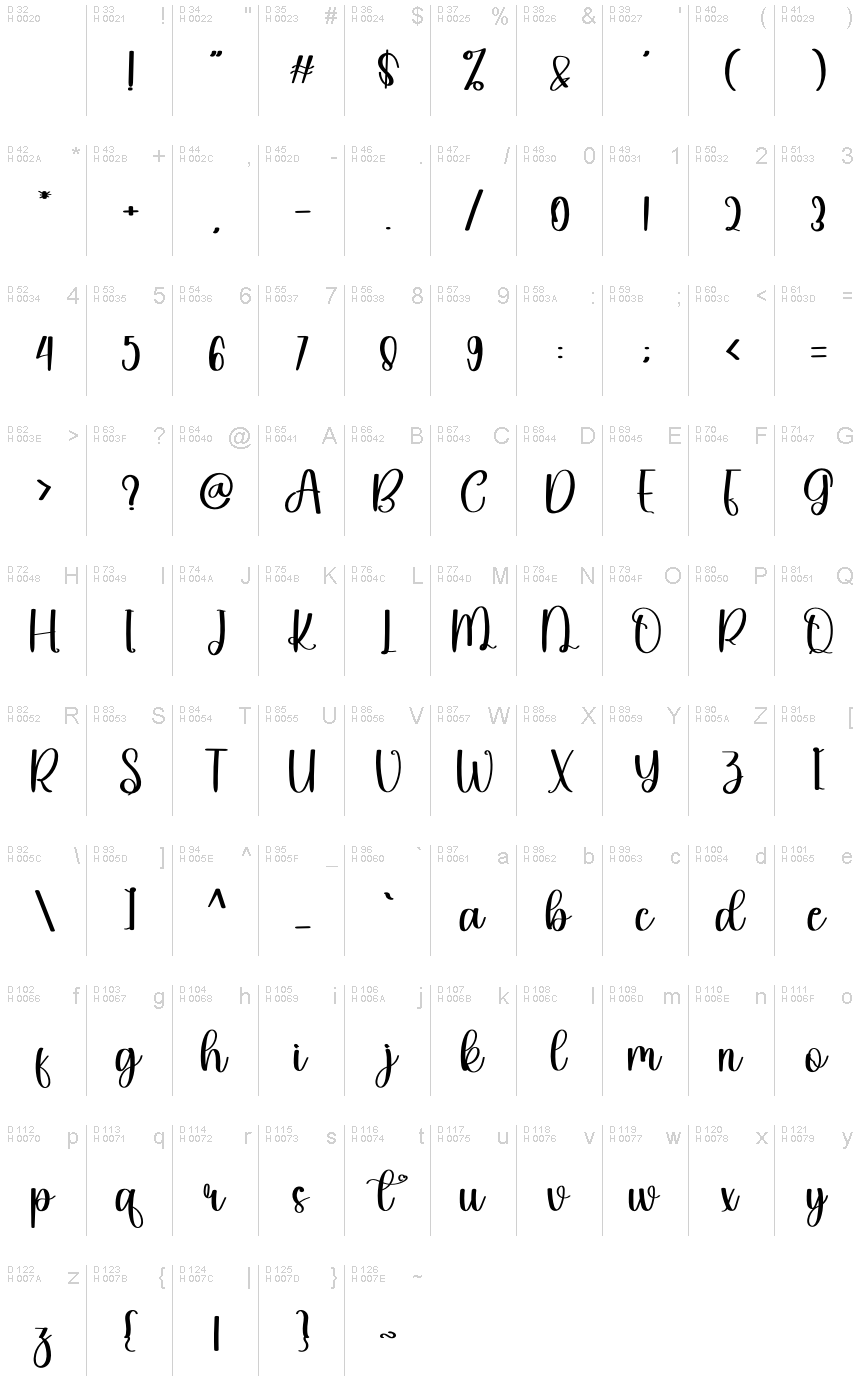
Ruling
Ruling font, crafted by PiPi Creative, is an exquisite calligraphy typeface that captivates with its elegant and refined lines. Perfect for creating sophisticated and personal designs, Ruling font delivers a graceful touch to wedding invitations, greeting cards, and branding materials. Its fluid script offers an artistic flair while maintaining readability, making it a versatile choice for both digital and print applications.
Embodying the charm of handwritten notes with a polished finish, this free font is ideal for projects that require a personal yet professional aesthetic. Easily downloadable for use in various design contexts, Ruling font stands out as a must-have in any designer's toolkit.